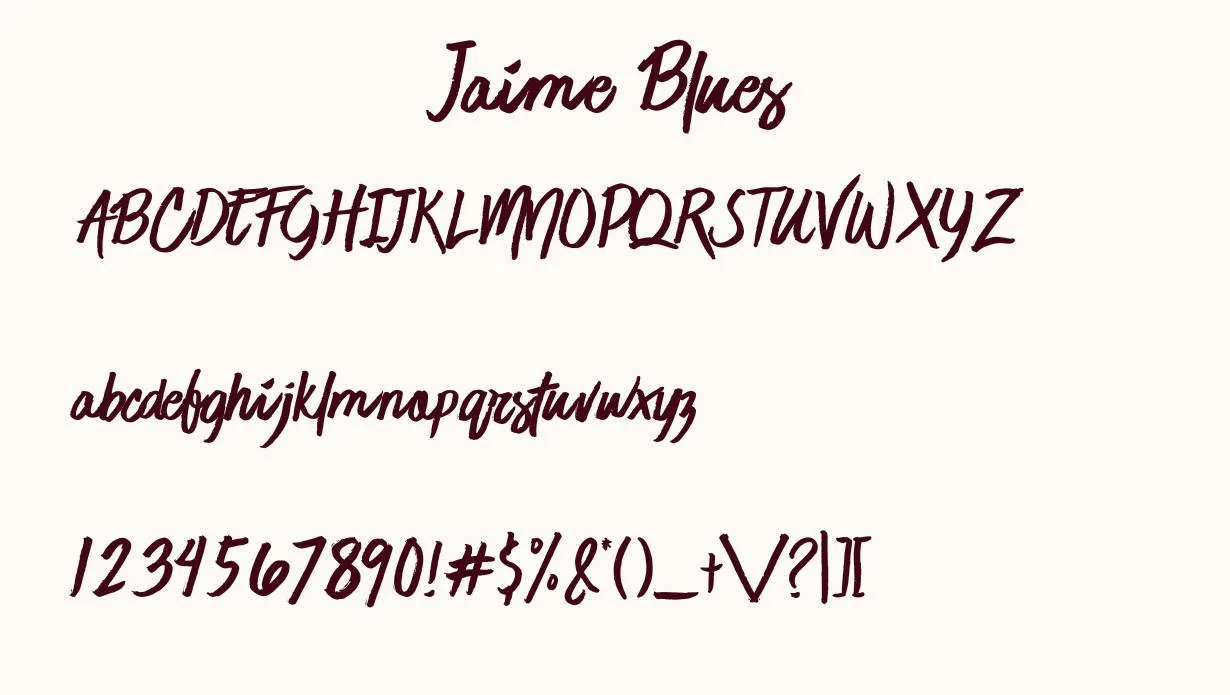
Jaime Blues Font has a soulful and bluesy vibe. It’s like the letters are singing a smooth melody. This font is perfect for projects that want to capture that cool and laid-back feeling.
Imagine using it for music posters or album covers – it adds that touch of bluesy coolness to your words. Jaime Blues Font is a great choice when you want your text to have a musical and soulful personality.
Jaime Blues Font Family List
- Jaime Blues Bold
- Jaime Blues Heavy
- Jaime Blues Ultra
- Jaime Blues Bold Italic